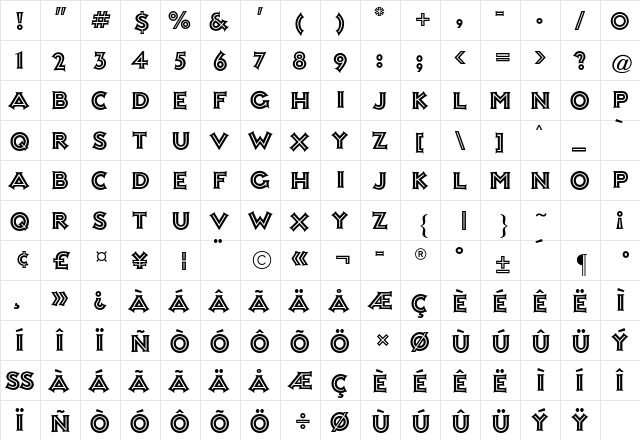
Ashley Inline MT Std Regular Font Preview
Ashley Inline MT Std Regular
Design Context for Ashley Inline MT Std Typeface
Ashley Inline MT Std brings ornamental detail and strong personality to headlines and identities, where visual impact matters more than quiet functionality.
Font Pairing: Pair with a clean neutral sans-serif for body copy to let Ashley Inline MT Std's character lead without overwhelming the composition.
Pro Tip: Use Ashley Inline MT Std exclusively at display sizes — it was designed to be seen, not read at length. Let a neutral companion handle body copy.